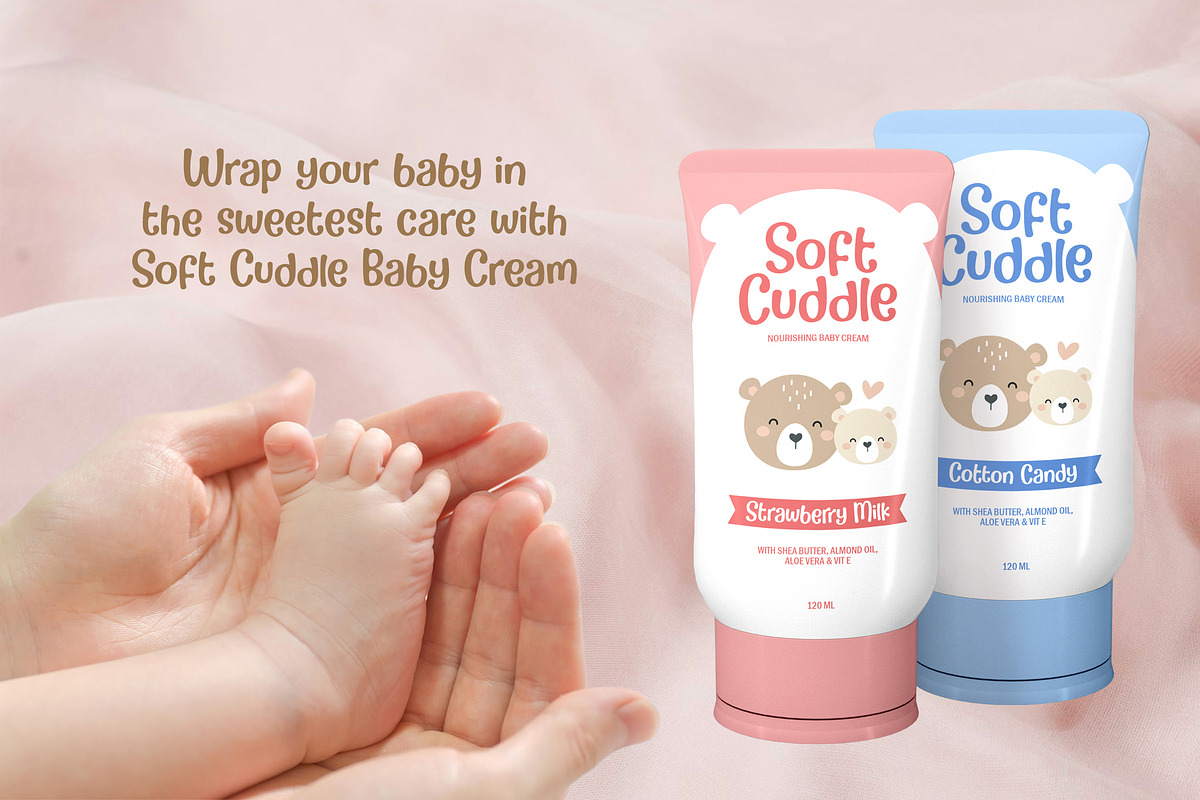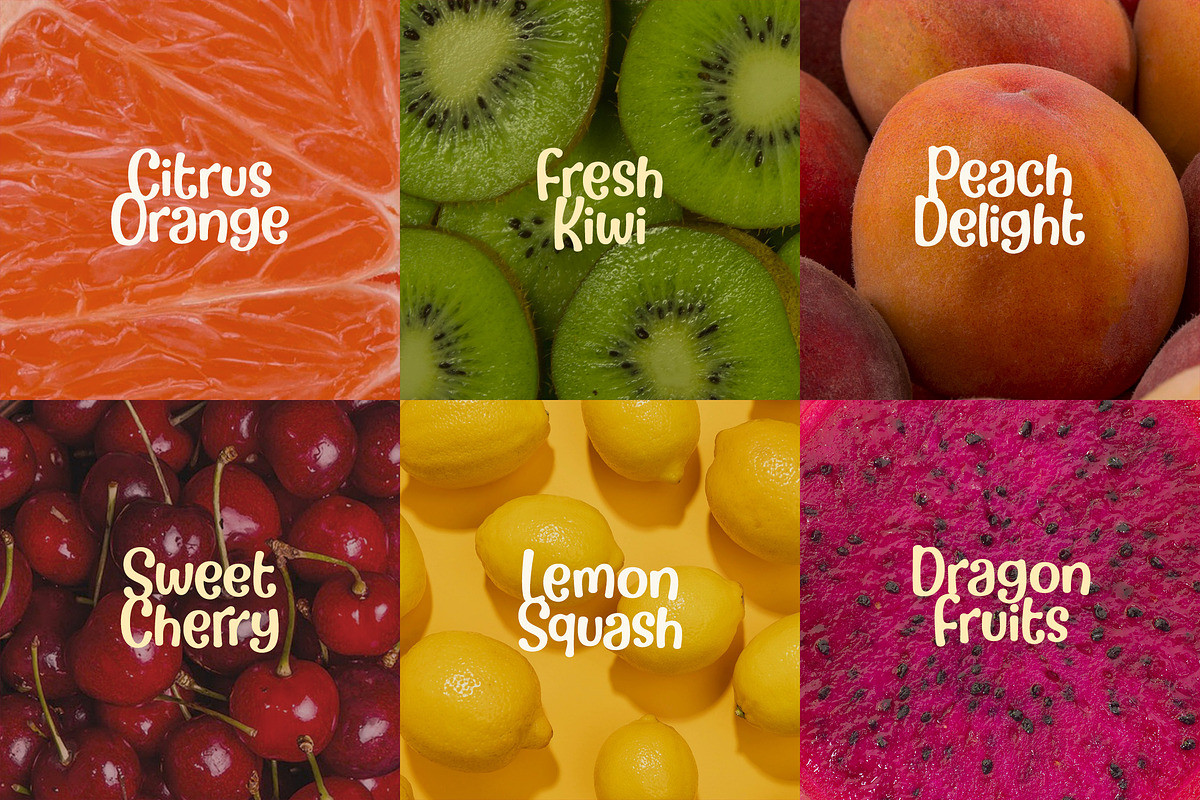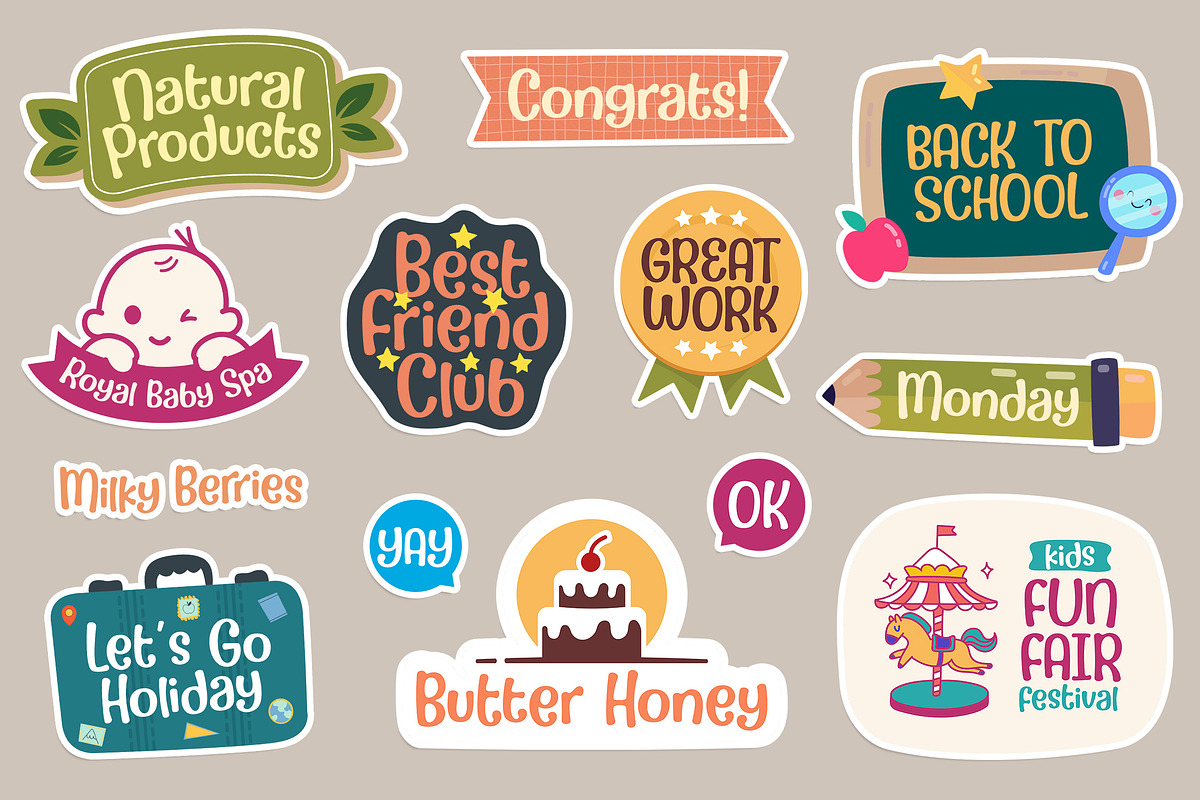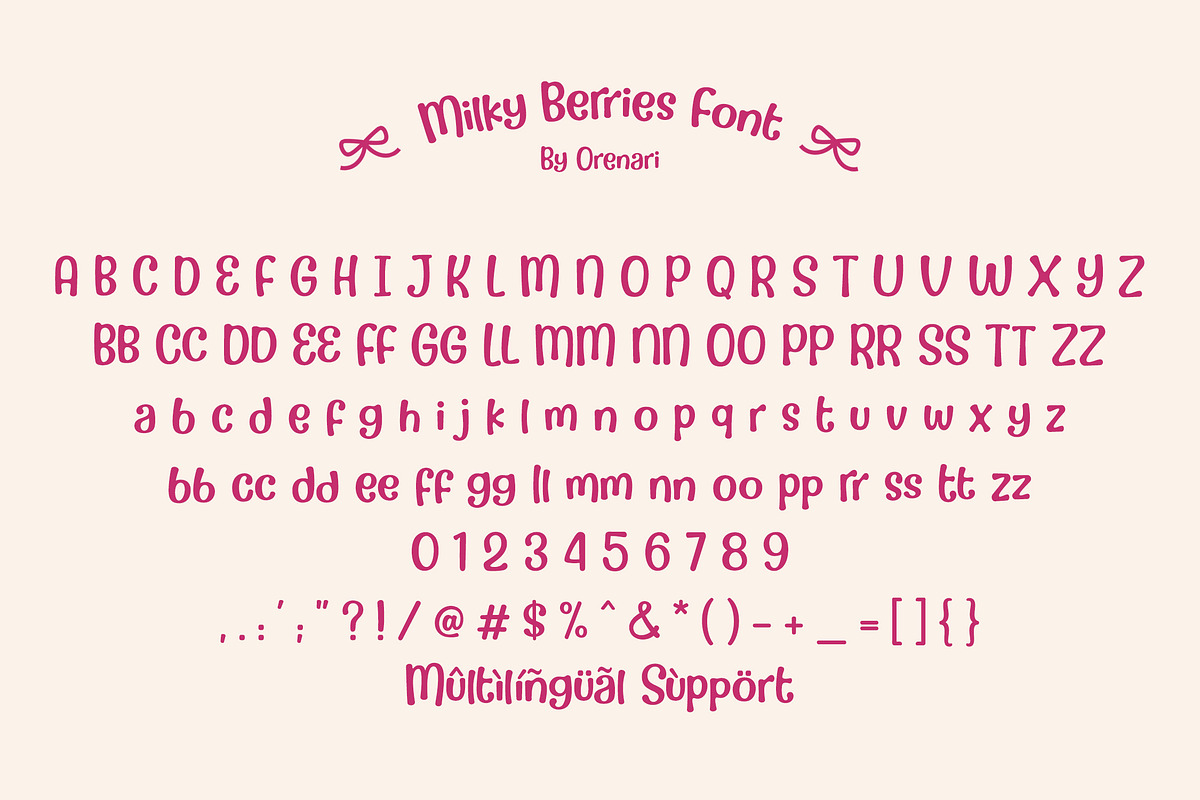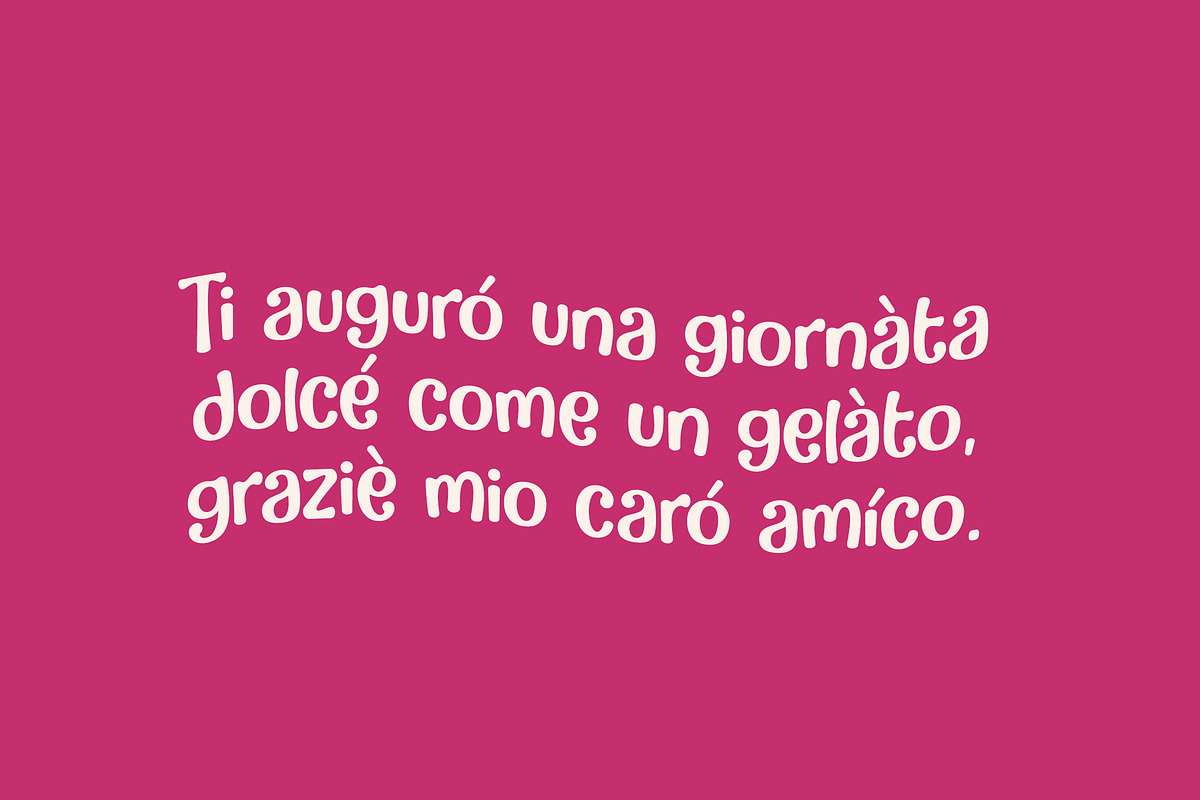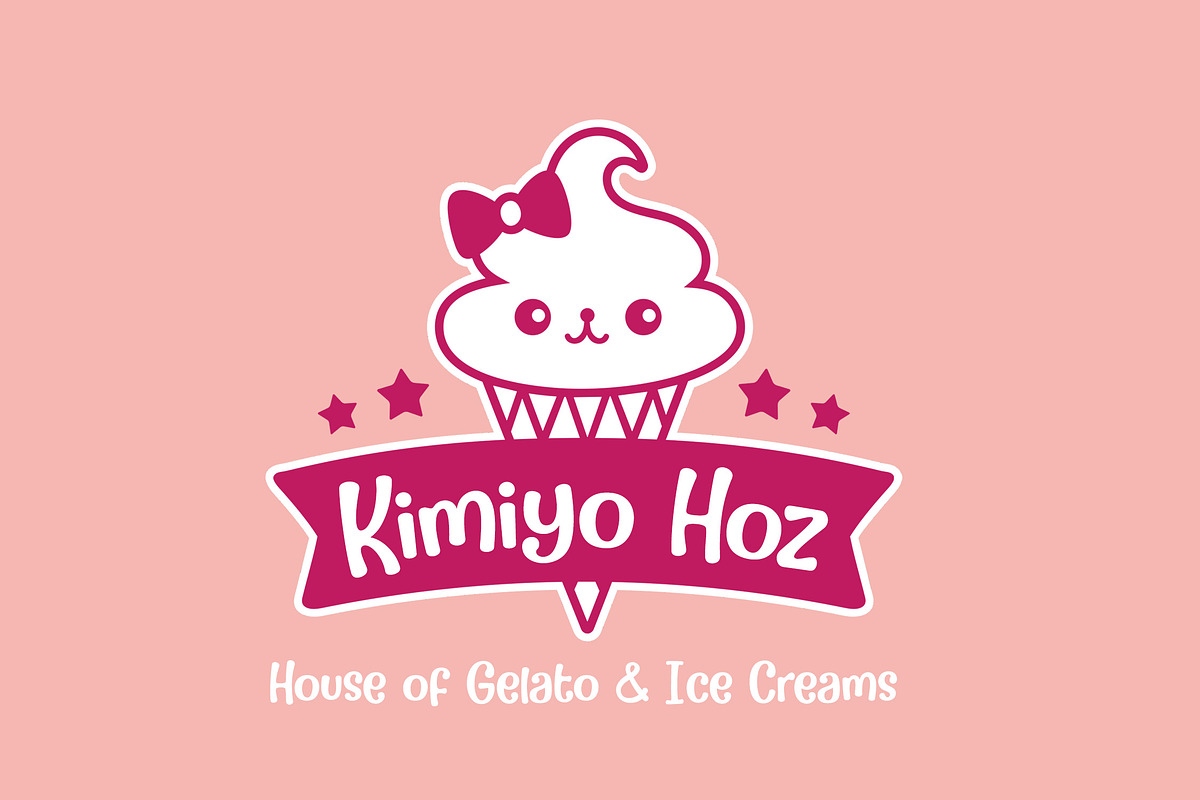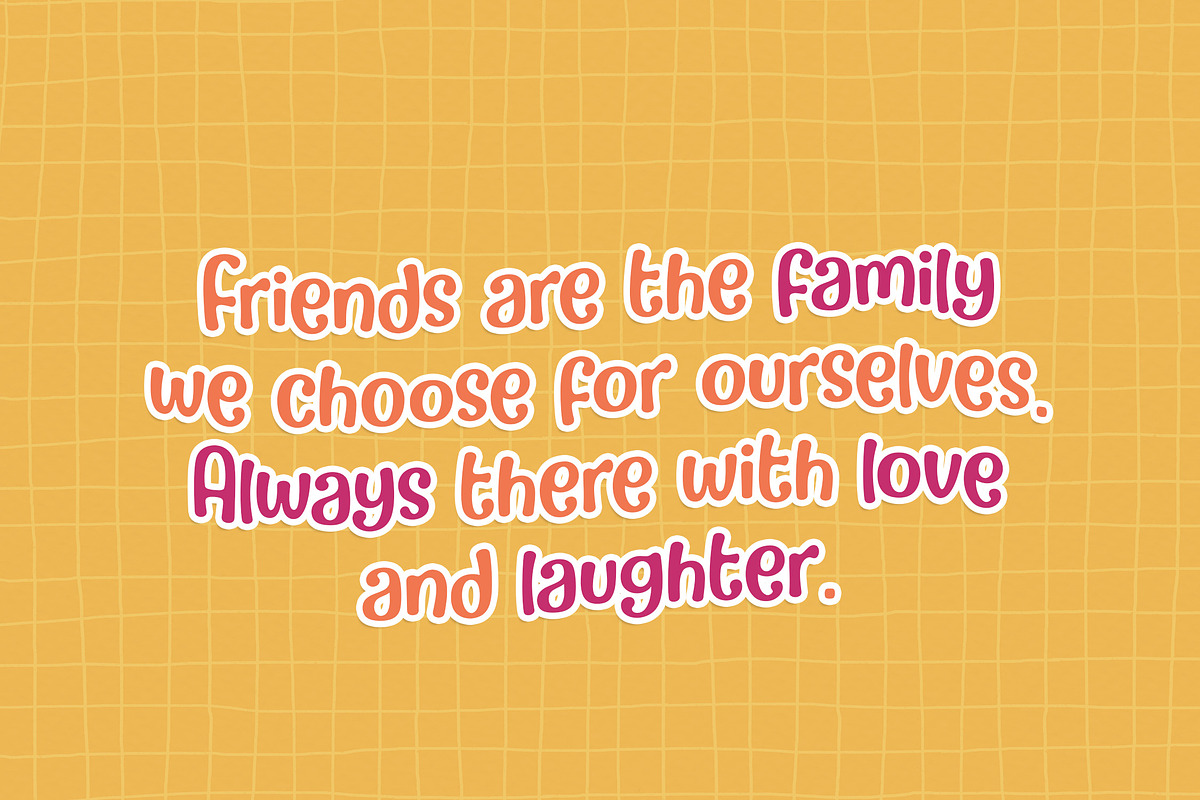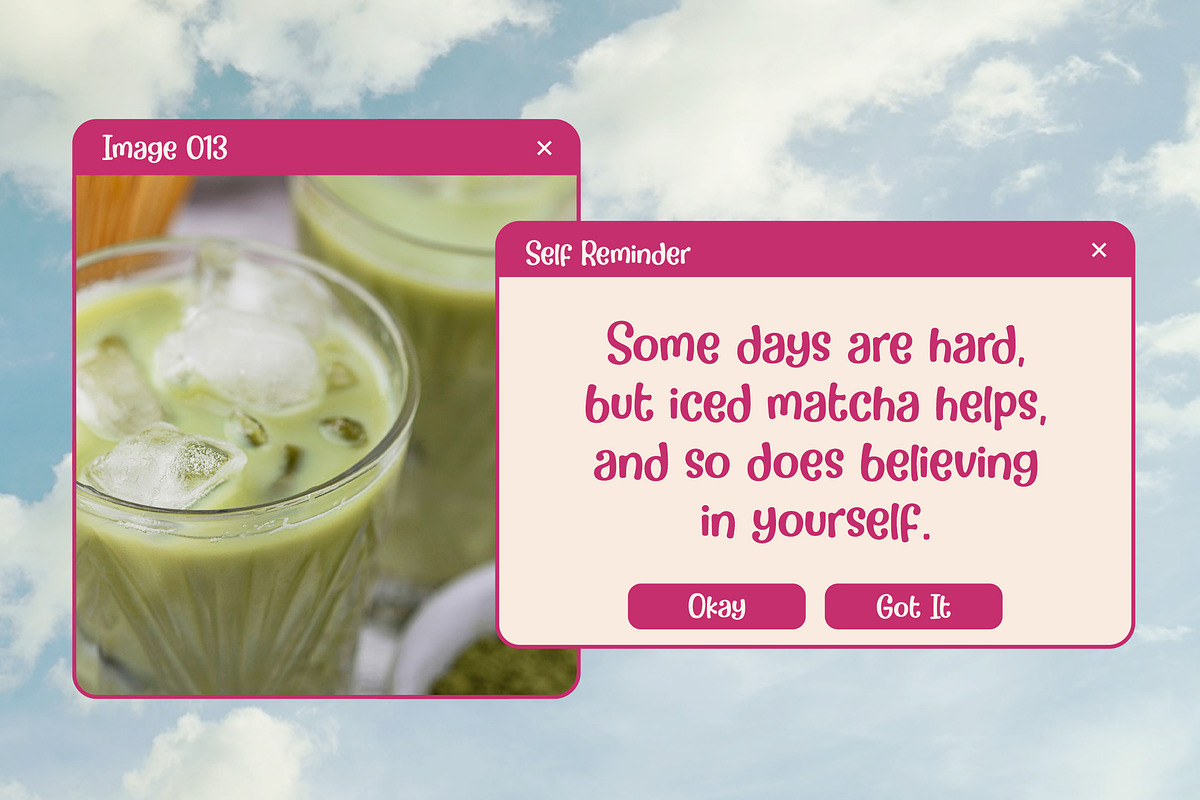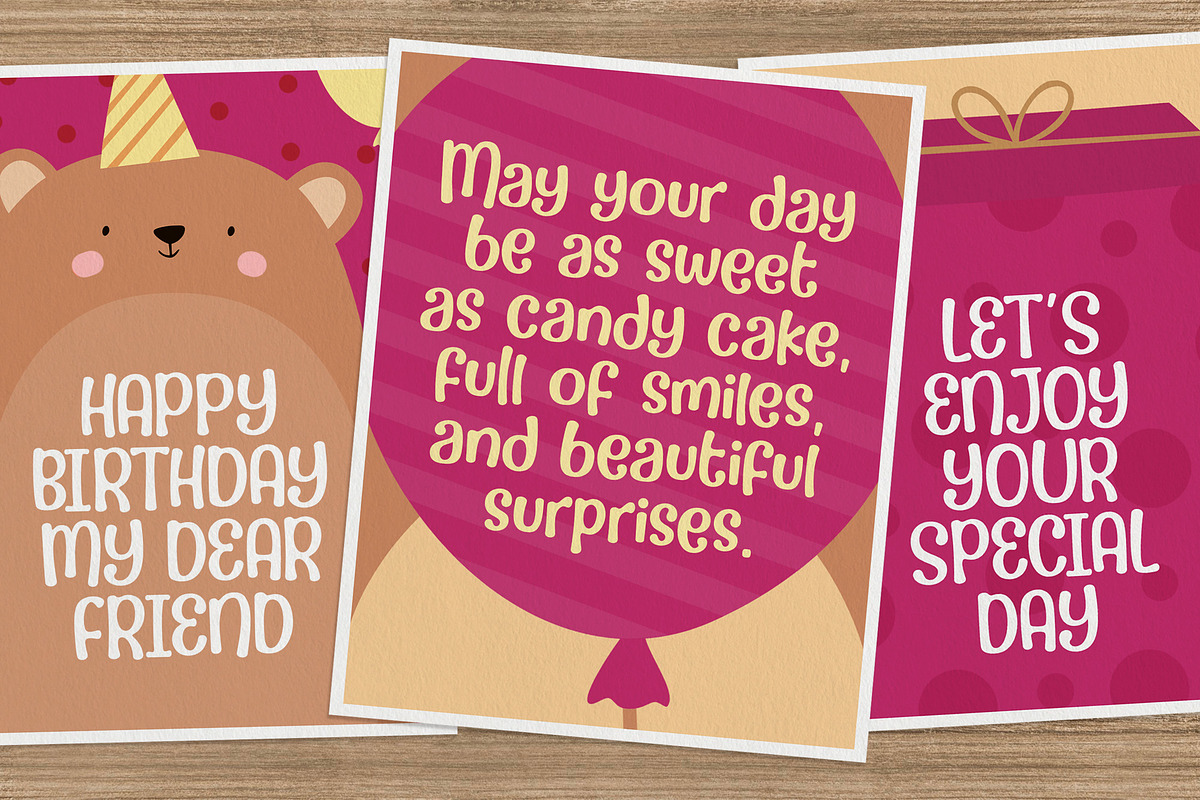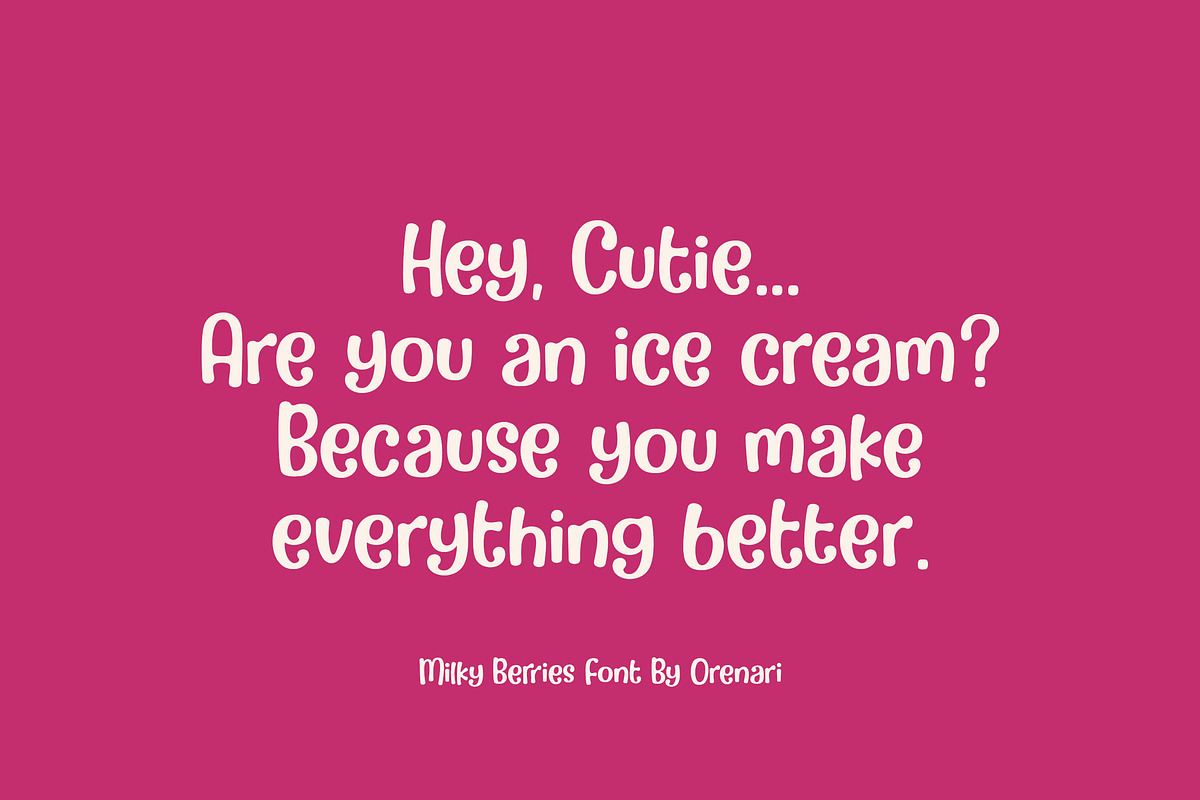
Milky Berries
Add a sprinkle of sweetness to your designs with Milky Berries! This playful handwritten font is bursting with charm — rounded, bouncy letters that feel as fresh as your favorite dessert. Whether you’re crafting a cozy cafe menu, a cheerful greeting card, or a bold social media post, Milky Berries brings a joyful personality that’s impossible to resist.
- A–Z uppercase & lowercase
- Cute ligatures for a natural, handwritten touch
- Multilingual support so you can spread the sweetness worldwide
With Milky Berries, every design becomes a treat for the eyes — Sweet, Soft, & Playful